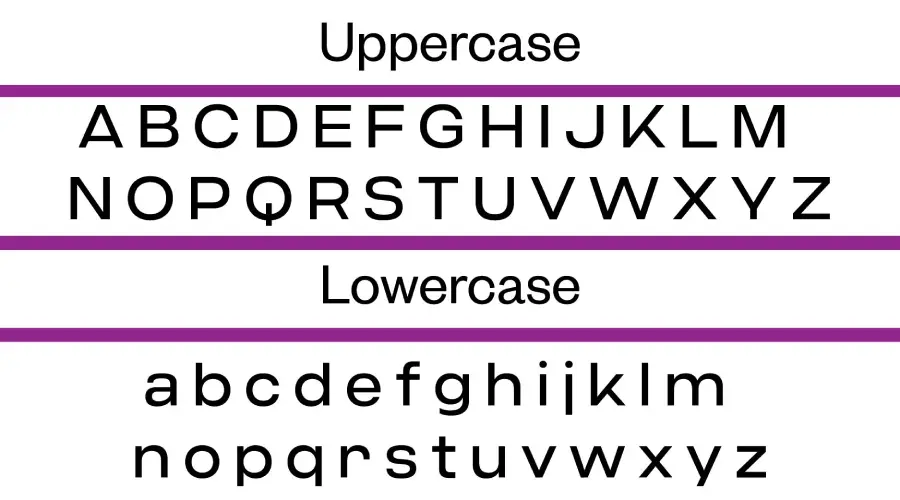
Criteria CF font is a modern, easy-to-read font.
Itβs made from simple shapes, just straight lines and circles, so every letter looks neat and clear.
It comes in nine weights, from very thin to very bold, and each weight has a slanted (italic) version.
You can use it anywhere: big headlines or small body text.
Criteria CF Font
It is unique in that Criteria CF was designed using a vintage PowerBook G4 Macintosh and refined on a new machine to demonstrate the utility and repairability of older machines, allowing them to be repurposed for an entirely new purpose and kept out of landfills.
Key Features
- Nine weights β pick the thin one for whispers, the super-bold one for shouts, and everything in between.
- Real italics β not just slanted letters, but hand-drawn shapes that feel elegant and natural.
- Extra touches β built-in ligatures and alternate letters you can switch on when you want a little extra flair.
- Speaks many languages β even Vietnamese β so your words look right no matter where they travel.